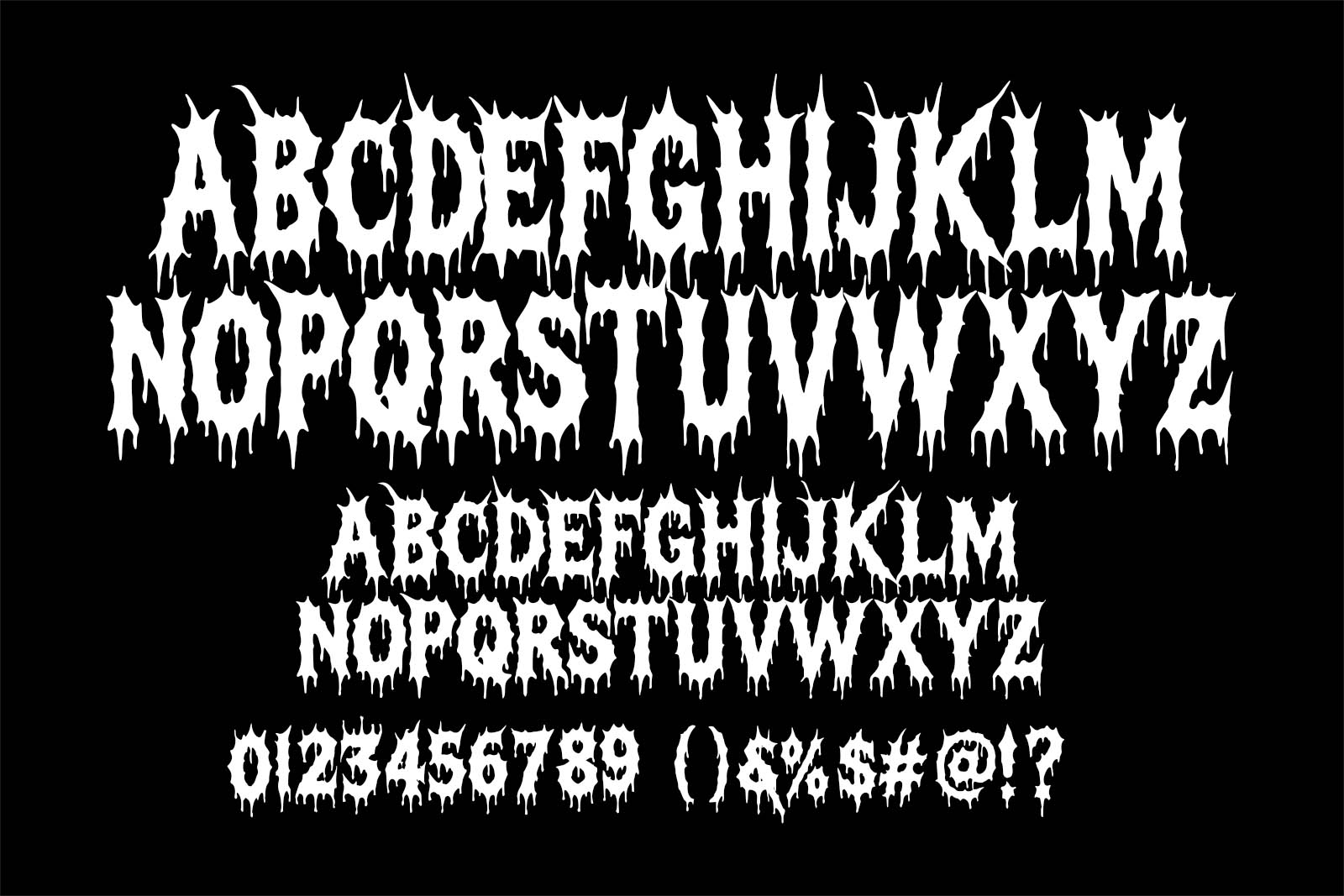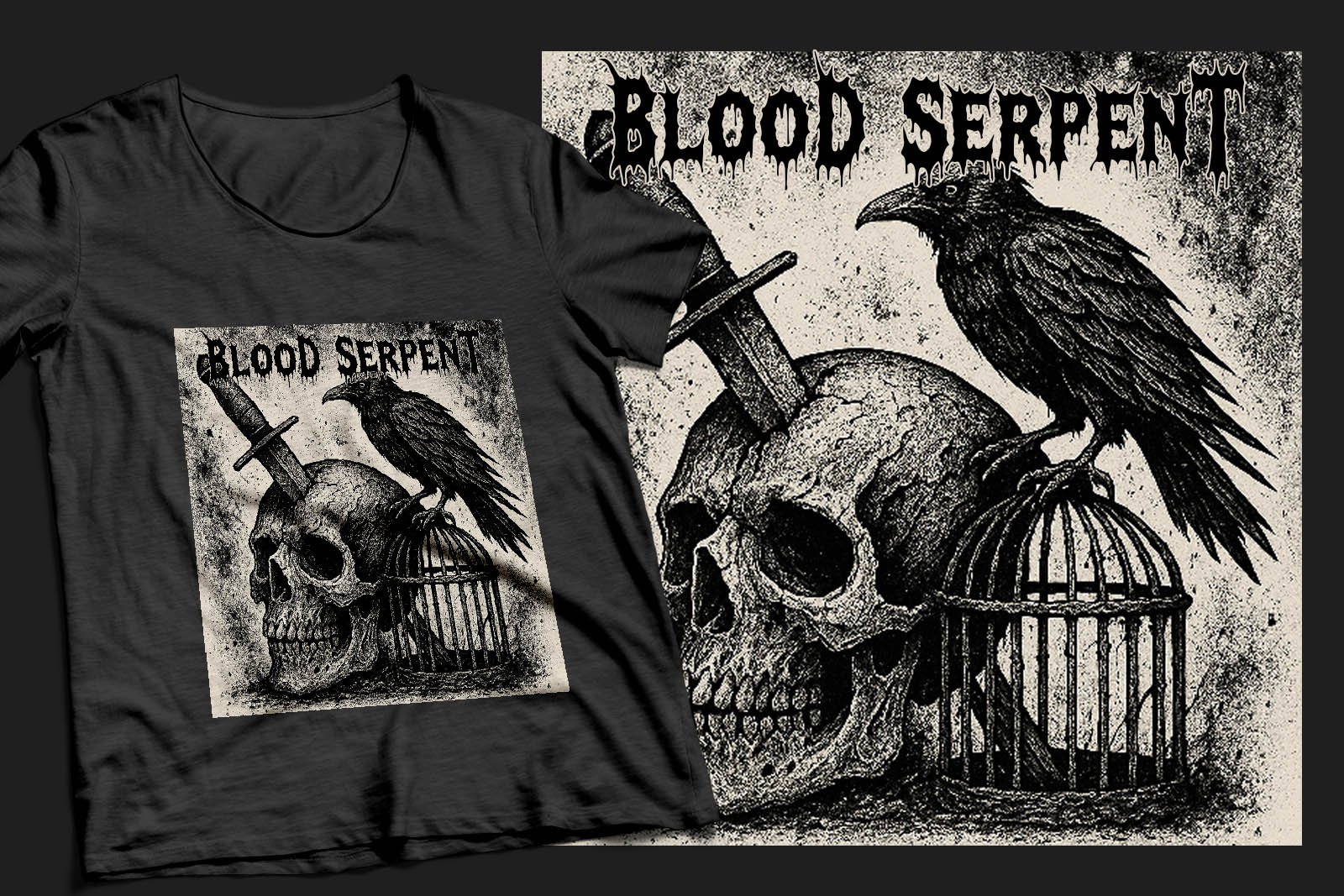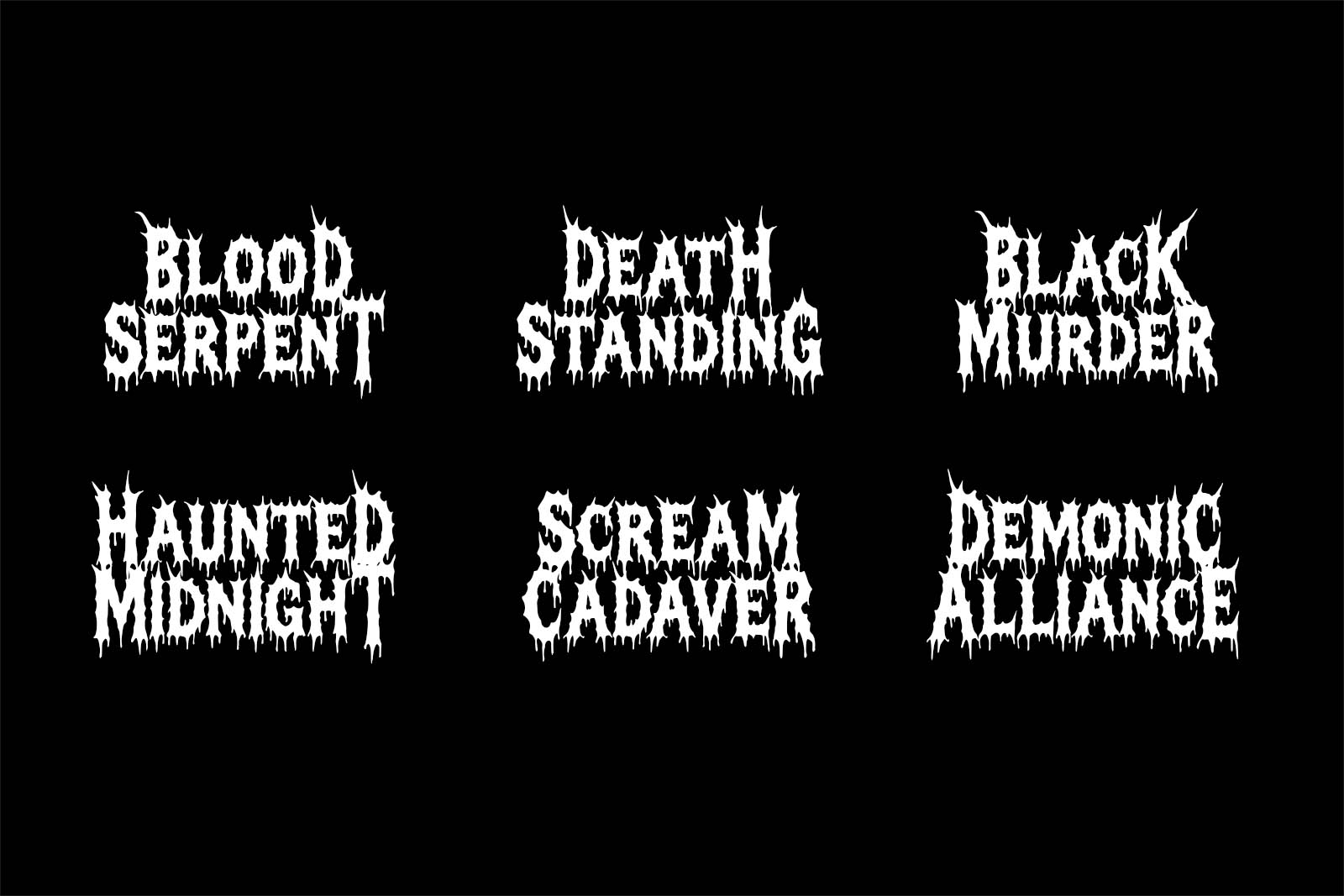
Blood Serpent
Blood Serpent is a bold and terrifying horror font inspired by black metal aesthetics and classic Halloween gore. Each letter drips like fresh blood, shaped with brutal curves, sharp edges, and chaotic textures — but still remains surprisingly readable, making it perfect for headlines, posters, merchandise, or haunted-themed branding.
Whether you're designing for a death metal album, a zombie-themed party, or horror game titles, Blood Serpent delivers a killer combo: easy to read, yet violently intense.
This font screams horror and darkness while staying practical for creative projects that demand legibility and attitude.
🔥 Perfect For:
• Halloween Posters & Flyers
• Horror Movie Titles
• Black Metal Band Logos
• Haunted House Signage
• Zombie or Vampire Merchandise
• Scary Game UI or Branding
• YouTube Thumbnails & Social Media Horror Art